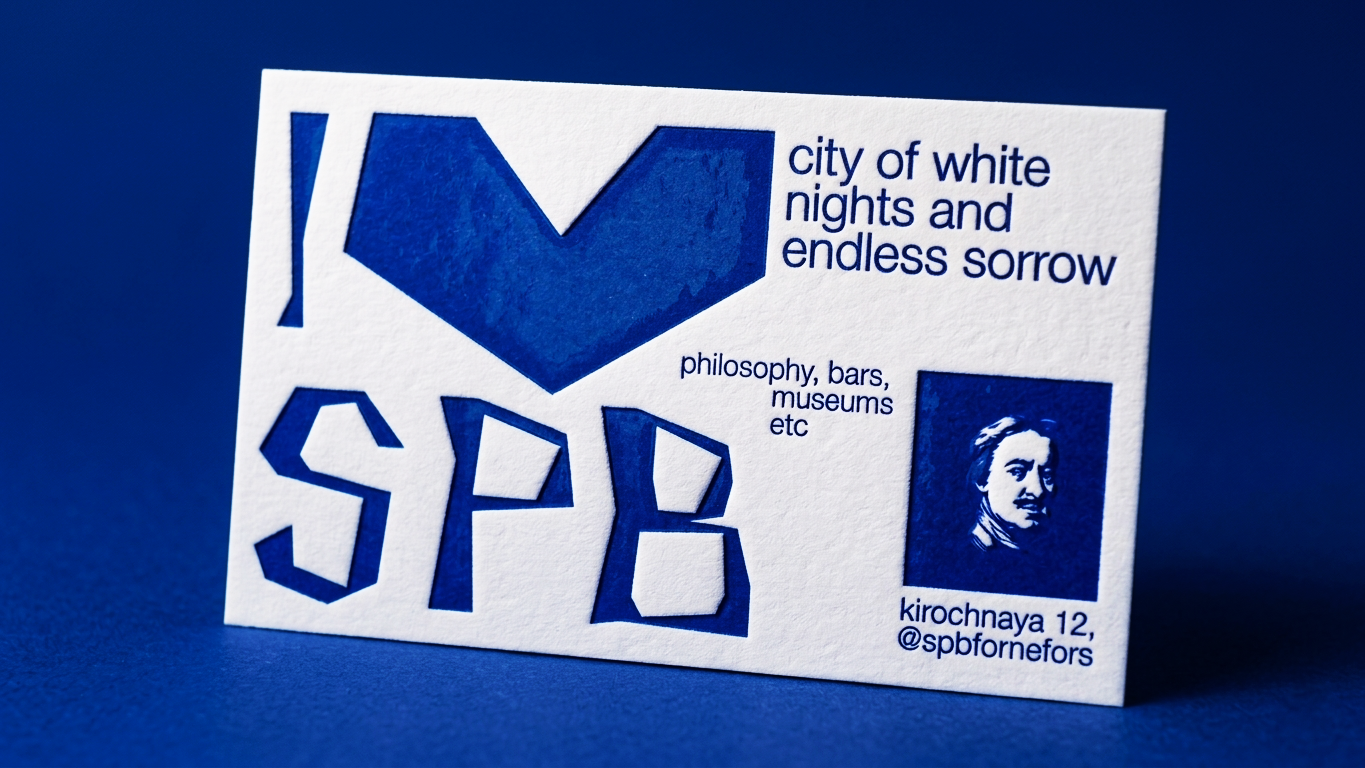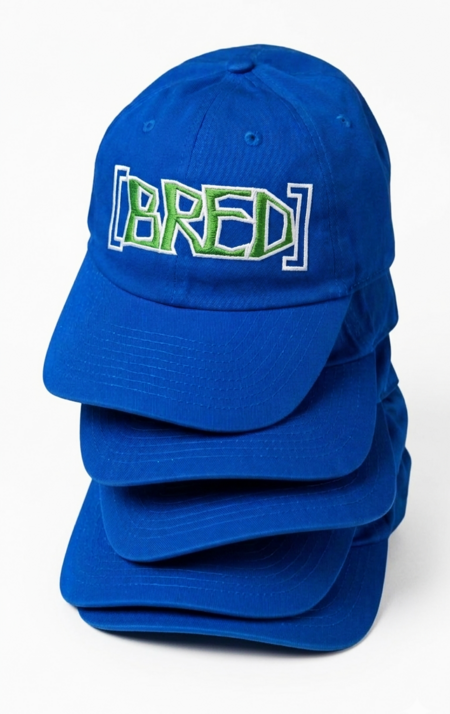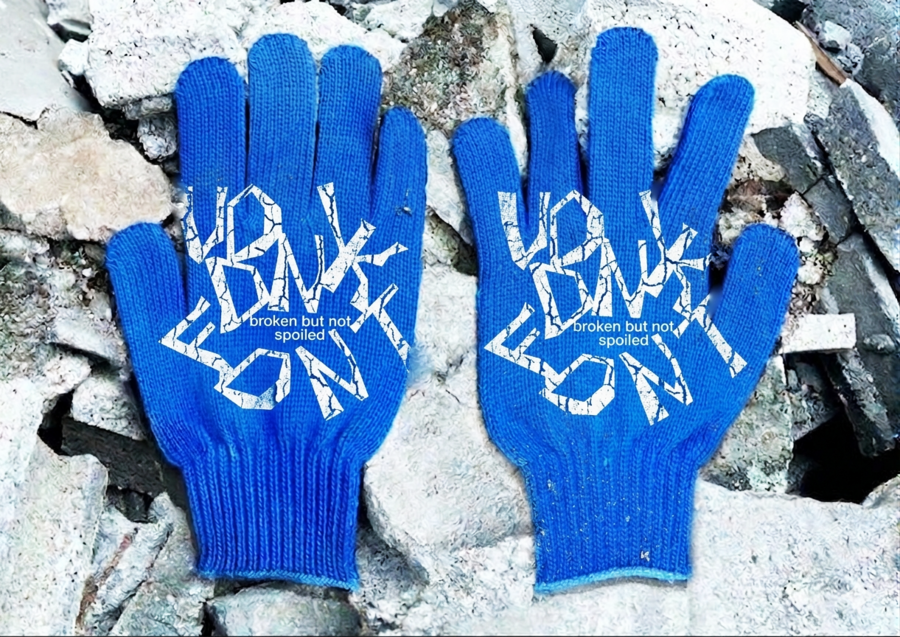
Origin
'Vodnik' was born in the intersection of breakage and fragility. Floor tiles are the foundation on which man walks every day, but as soon as they are separated from the floor and take a different position, they can easily break.
Main Hall and Corridor (Vodnik Cultural Center)
As inspiration I chose mosaic tiles from the abandoned Vodnik Community Center in Saint-Petersburg (Russia). Back in past it was a pompous and ceremonial building that could accommodate thousands of people. Now dilapidated, the building, in its authentic state, has become a haven for artists and nonconformists. Alternative exhibitions and punk rock concerts are regularly held there. Most of them illegally.
Broken tiles (Vodnik Cultural Center)
The font interprets breakdowns not as a malfunction, a decommissioned product, or something that needs to be fixed,
but as a sign of vulnerability.
Visit Card
Font case
Latin font case
Cyrillic Font Case (additional)
Character architecture
Stroke weight swings from heavy to hairline inside a single letter. It reads as deliberate rather than sloppy — the kind of awkward that only holds together when it’s drawn on purpose.
Set it large. Vodnik is built for the headline, the title, the one word that has to stop someone in a hallway.
Font in use
Stickers